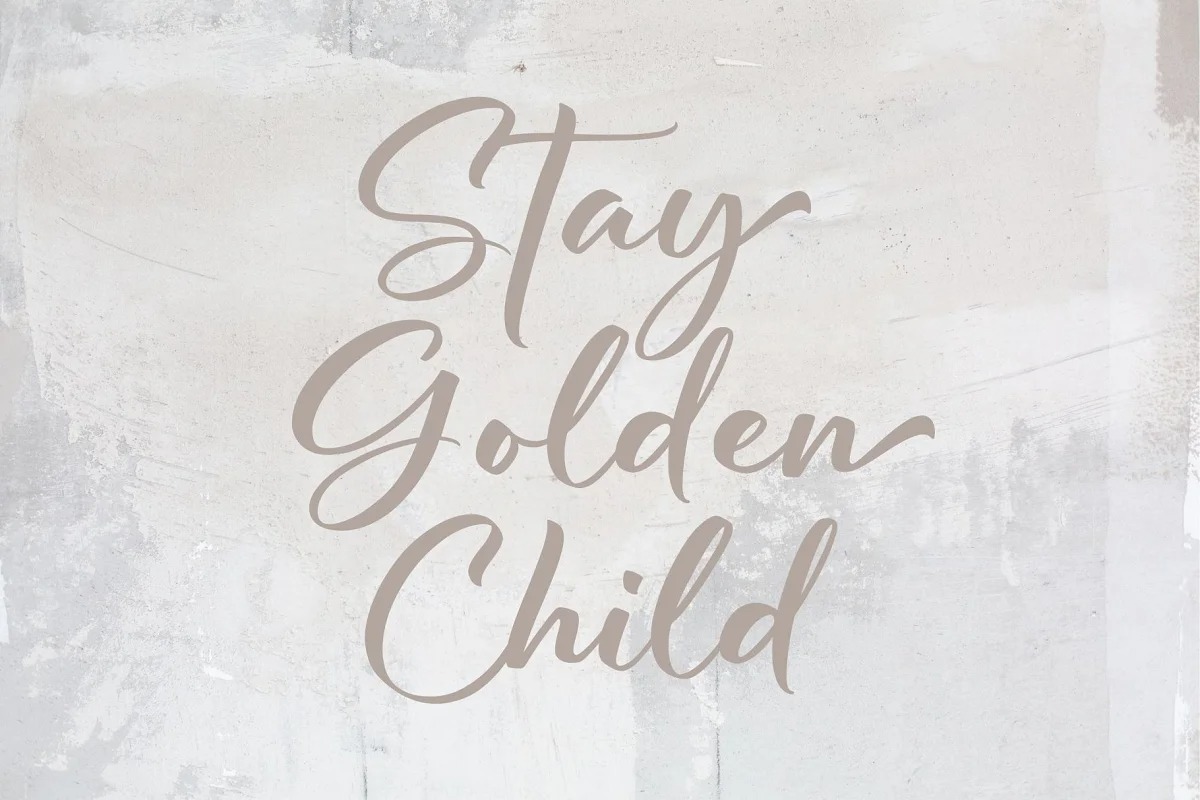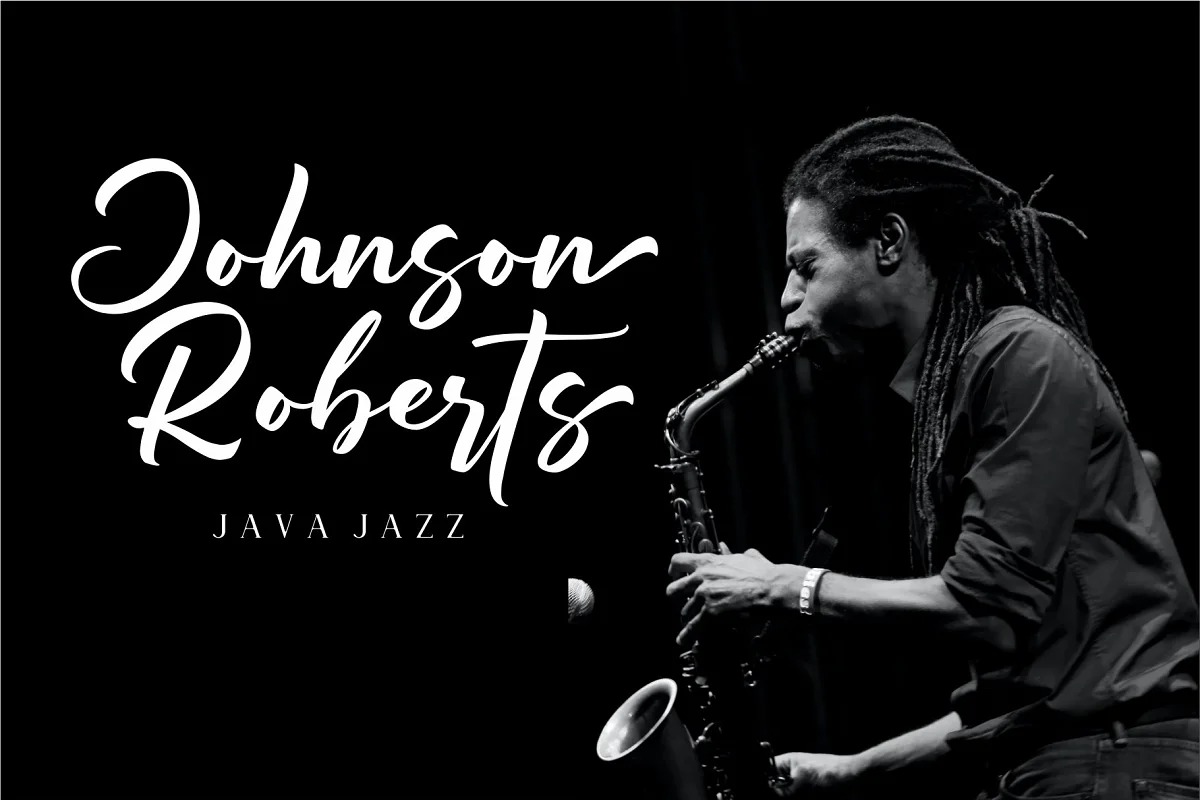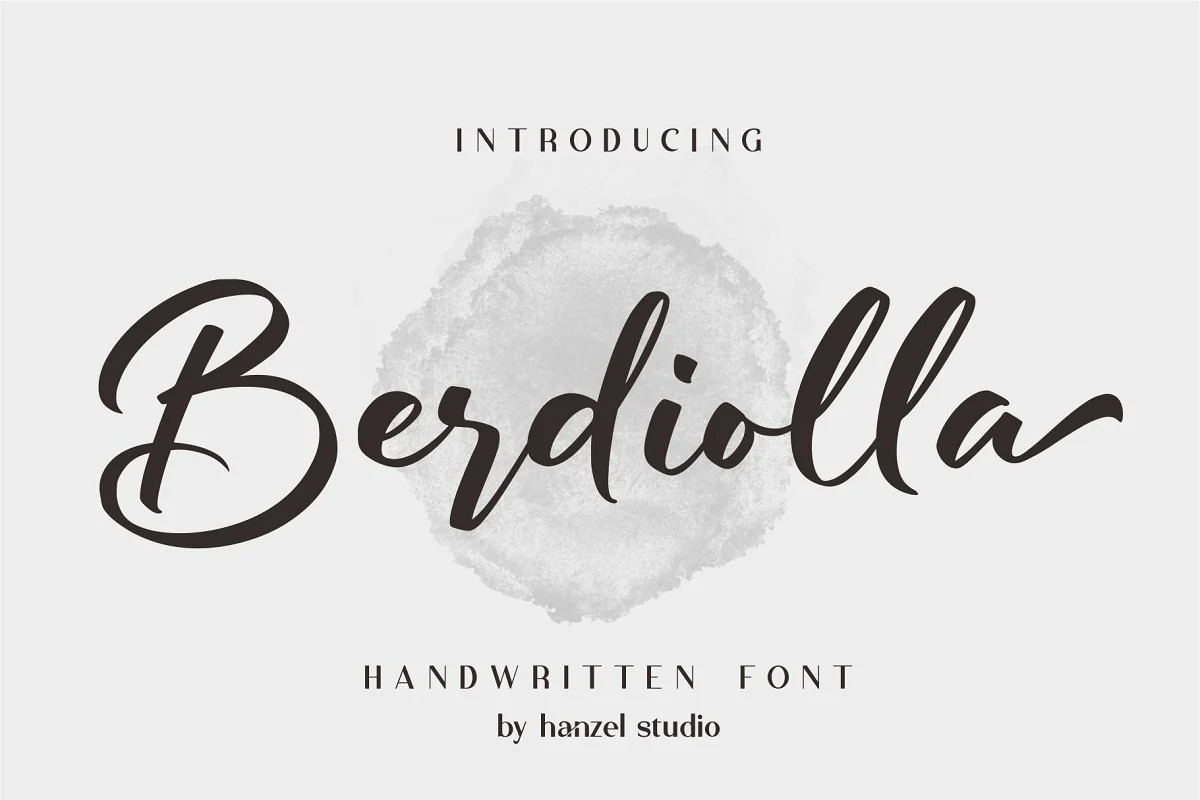
Berdiolla Script Font
This is a hand brushed font with and irregular baseline. It’s designed and shared by Hanzel Studio. This calligraphy harmony gives the impression of being luxurious, free and sophisticated.
Berdiolla contains opentype features such as stylistic alternates, swashes & ligatures. Perfect for logo, printed quotes, badges, insignia, packaging, headline, poster, t-shirt / apparel, greeting card, and wedding invitation, & etc.